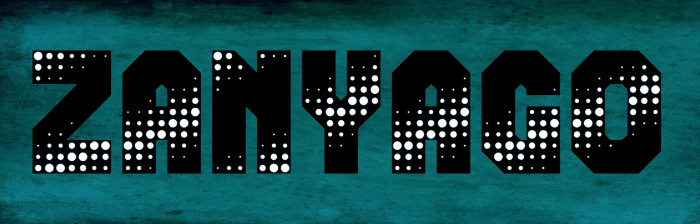
Playing with pattern capitals. Some alternates in the lowercase. Best viewed in large format.
Under the are Circle & the Font is Squared like you 2010 or 2009 font by You...but likes to ZQUARED 2.0 eYe / FS like you First font in 2009 but you do in 2023 a new version but likes the Same i see it!